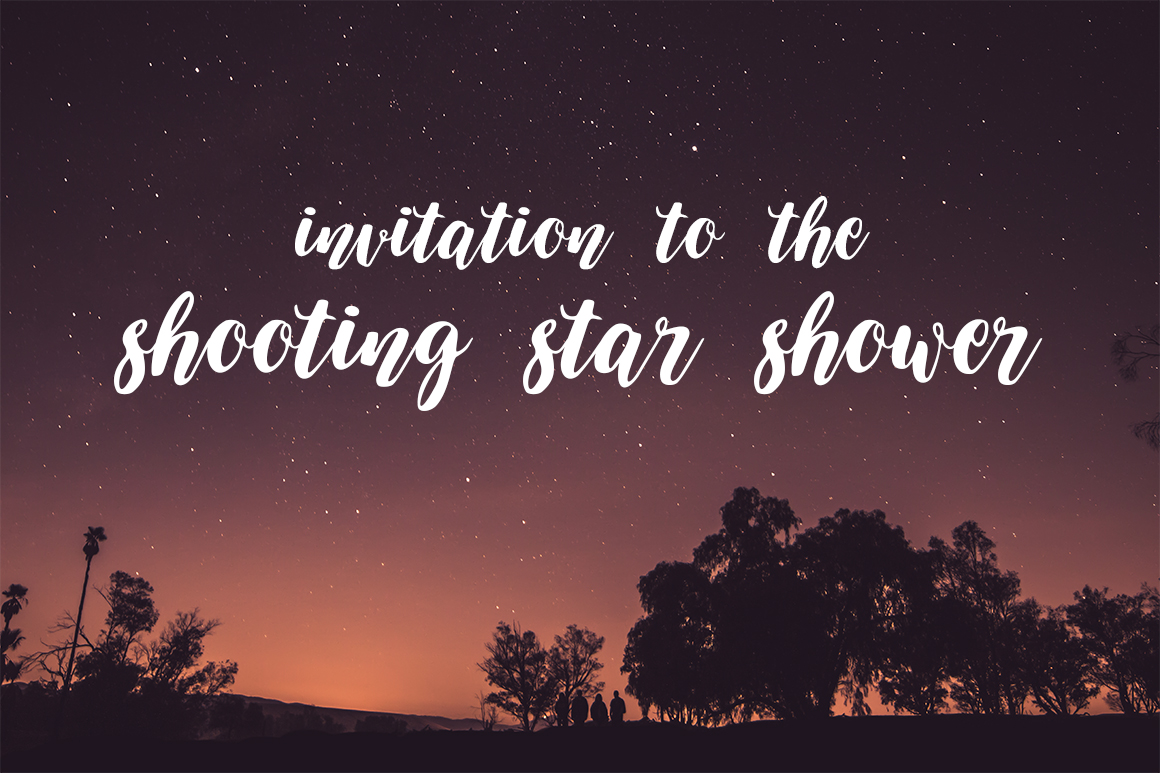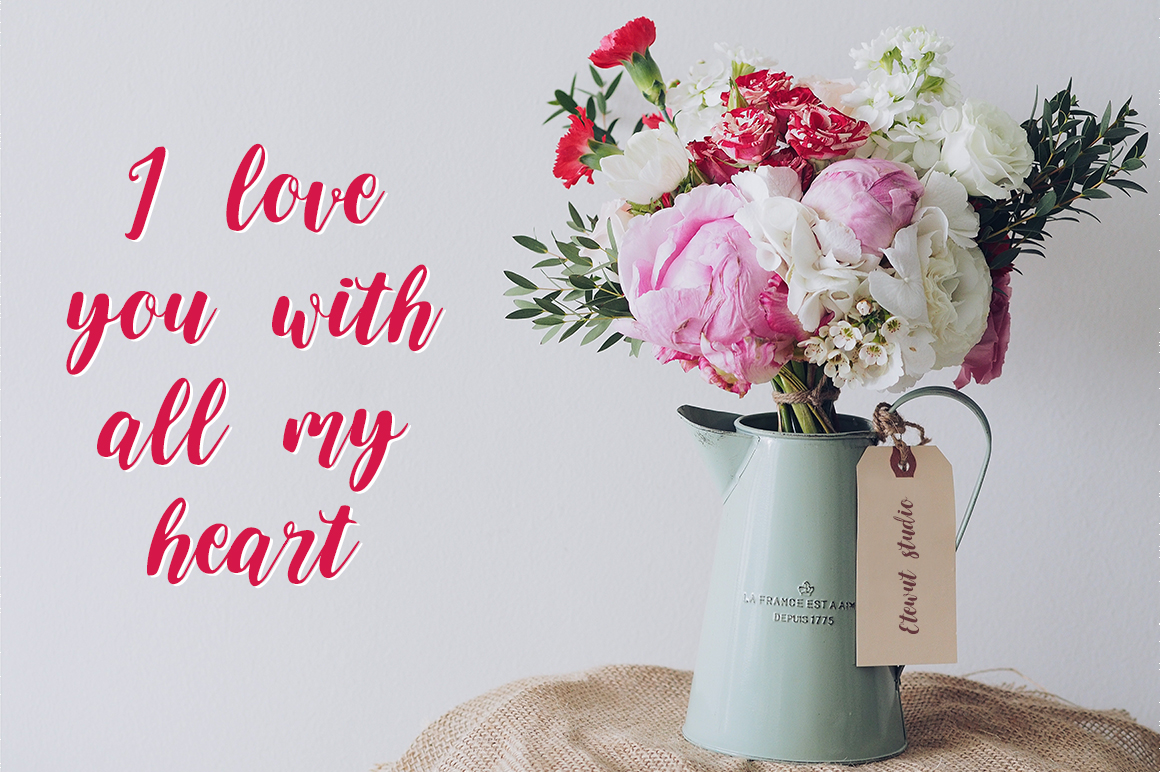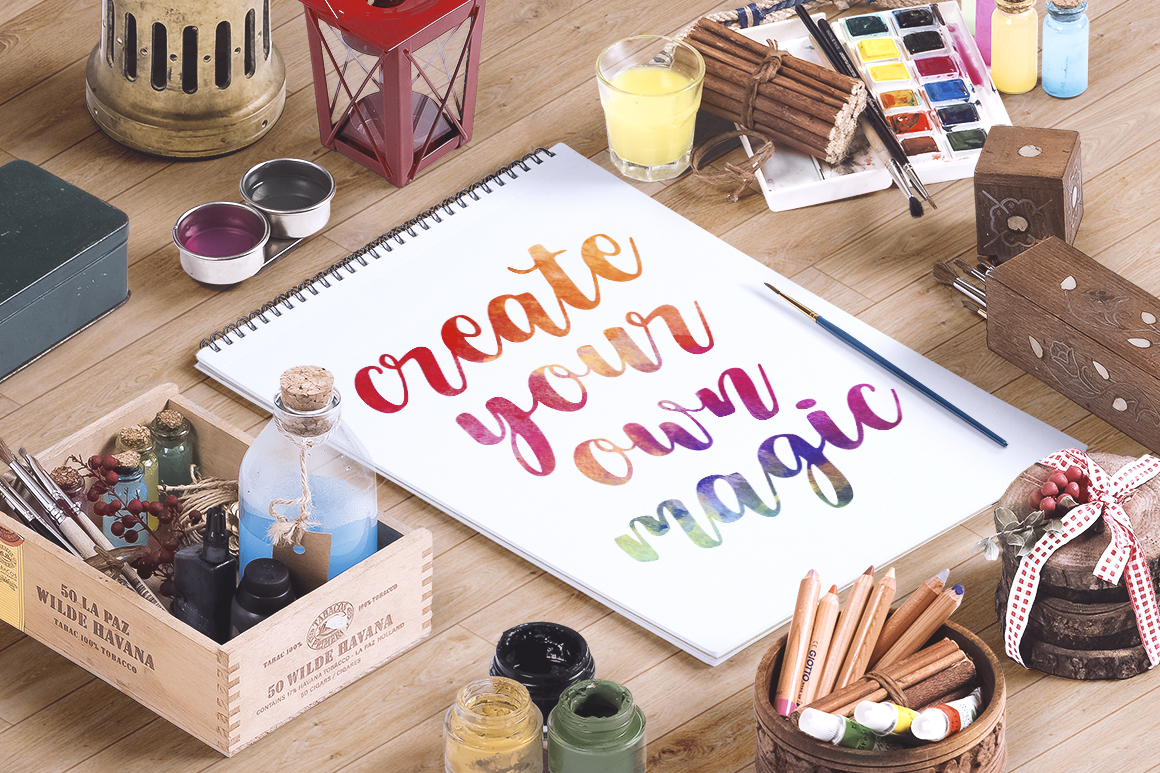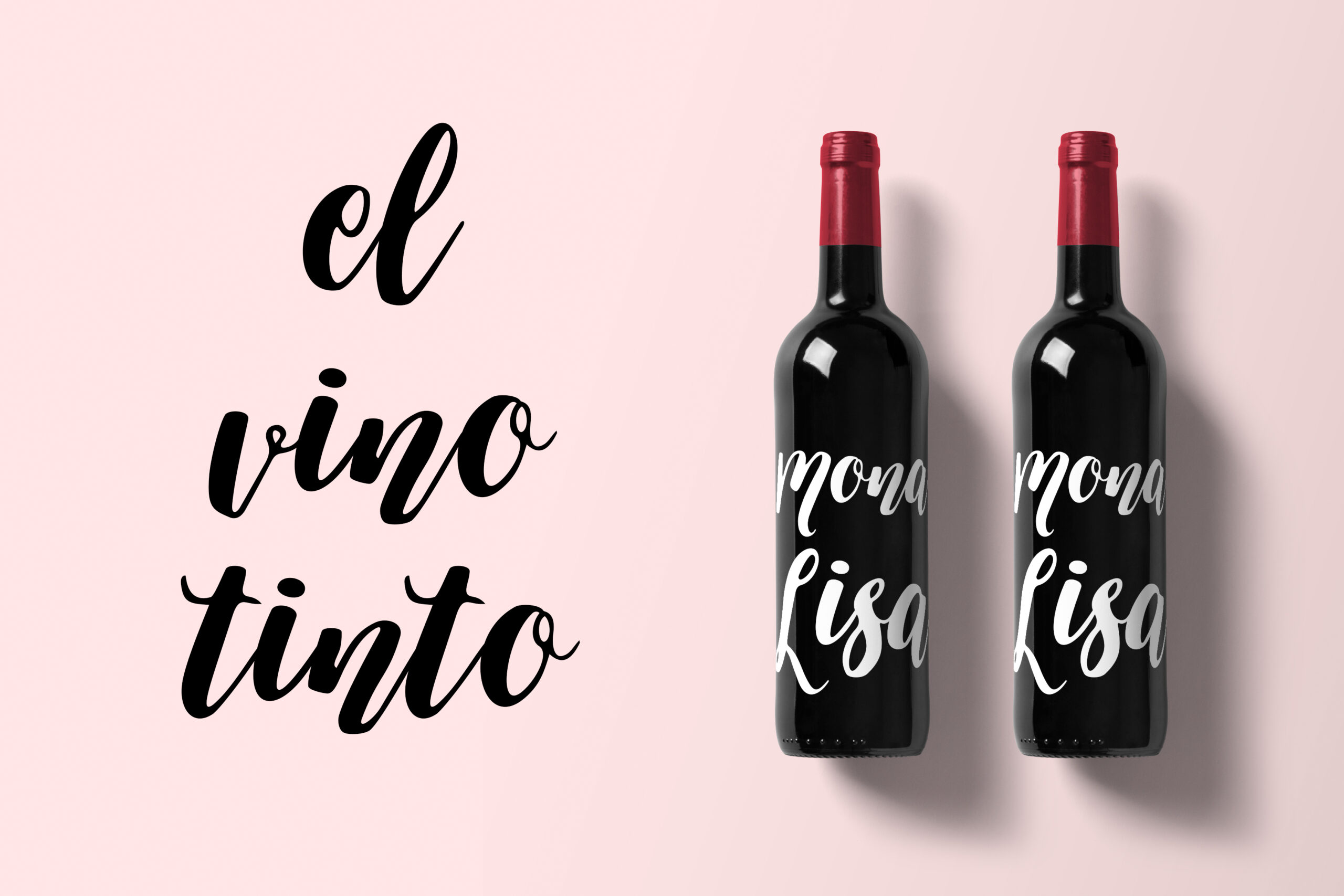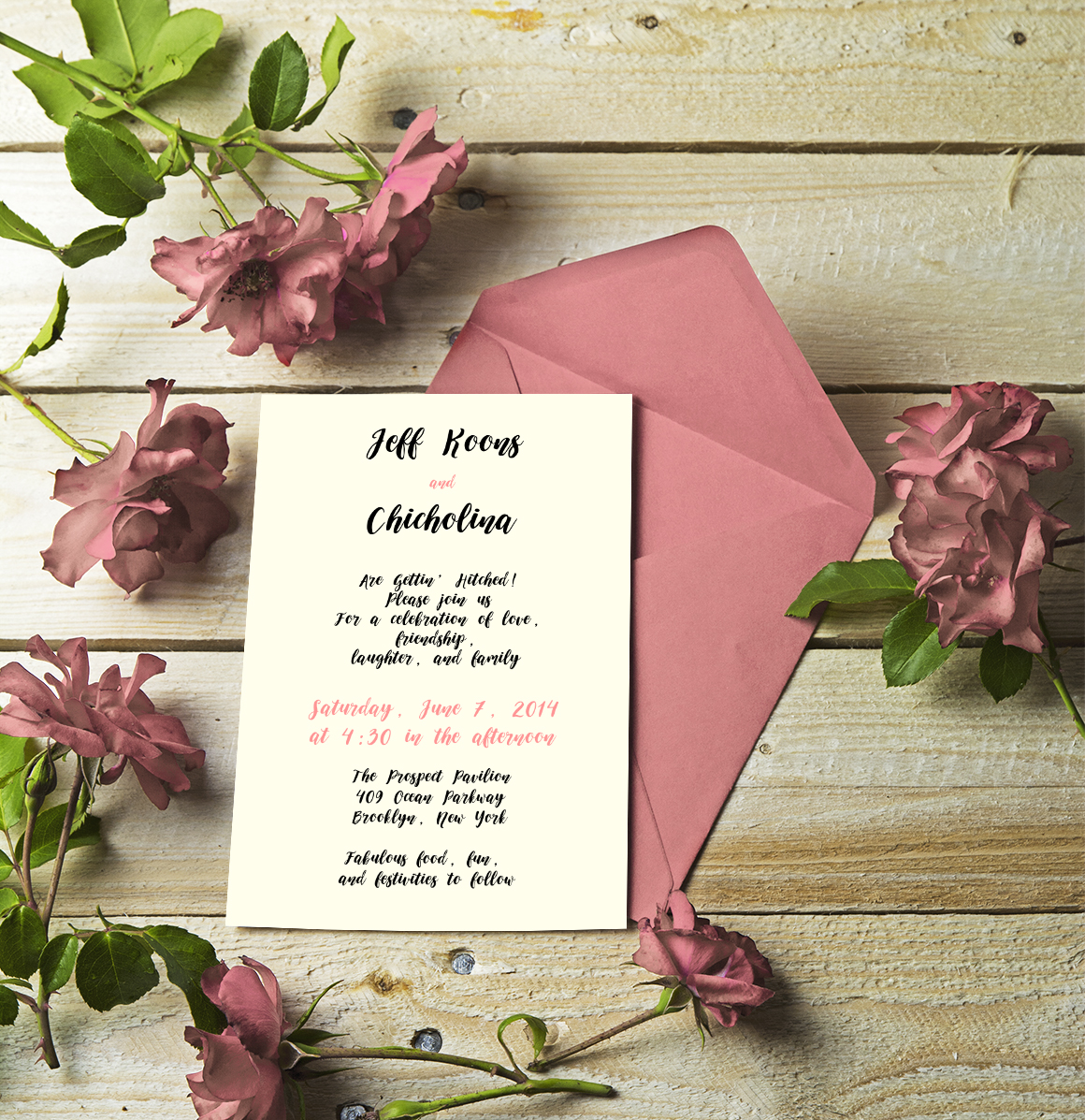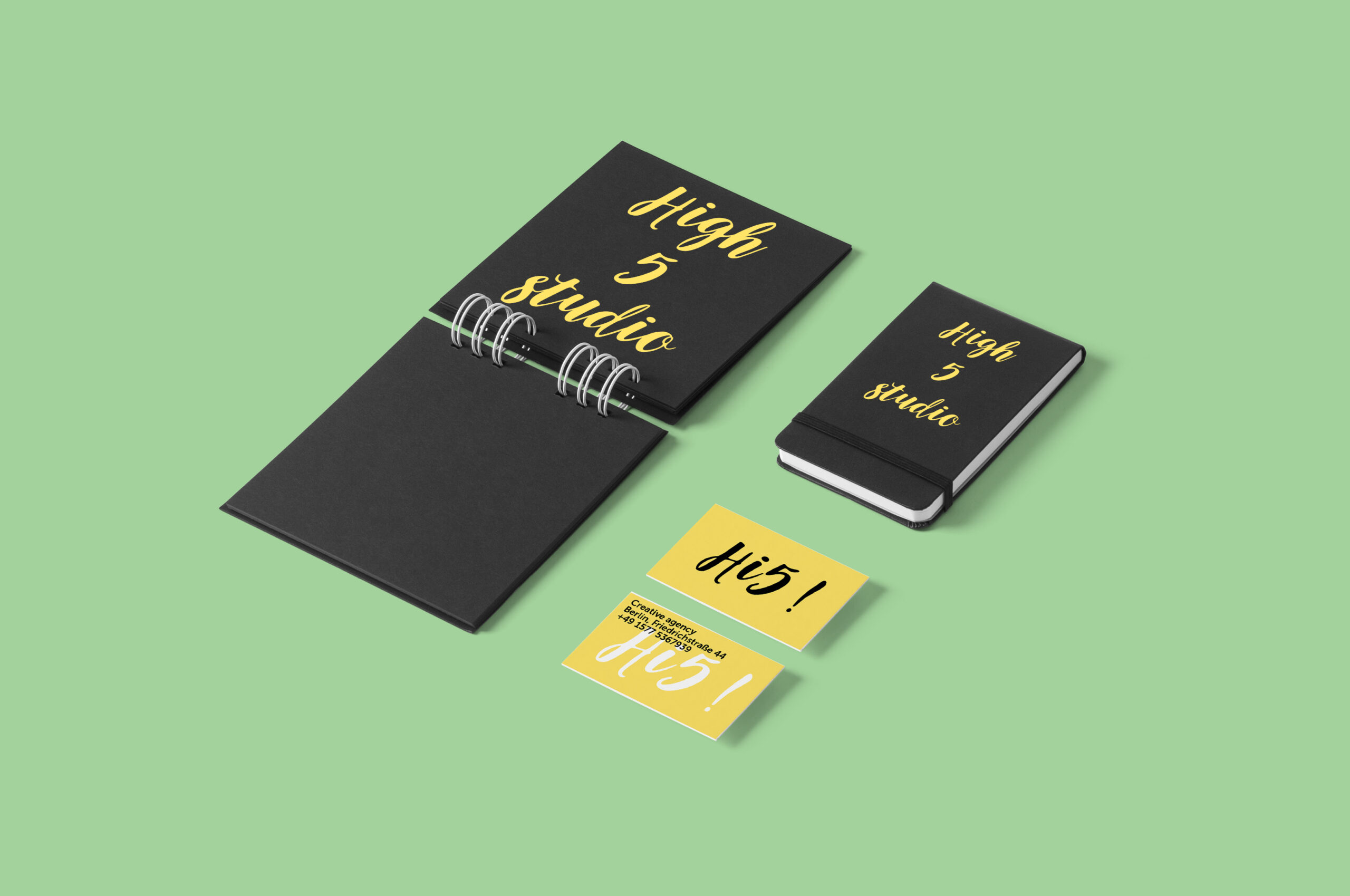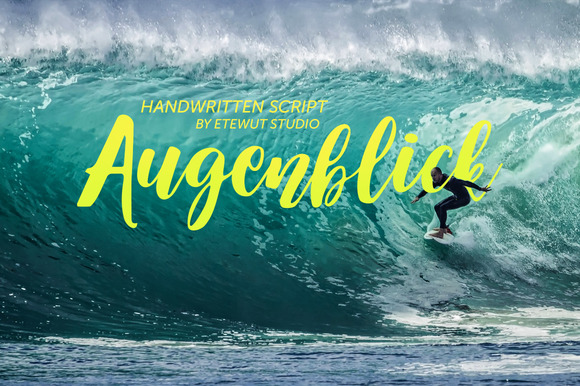
HomeScript FontsAugenblick Font Script Fonts Augenblick Font FacebookXPinterestWhatsApp Augenblick Font Poster 2 Augenblick Font Poster 3 Augenblick Font Poster 4 Augenblick Font Poster 5 Augenblick Font Poster 6 Augenblick Font Poster 7 About Augenblick Font Augenblick is a smooth handwritten font created by Etewut. DOWNLOAD ON CREATIVE FABRICAThis font is sold and delivered by Creative Fabrica. Font Canyon may earn a commission if you buy through this link. People also explored Beadwork Font Mollani Anemouth Font Betrothed Font Refanea Font Soubath Ambyar Font Assuming Font Amarthas Font Butter Jelly Font 312 0 TagsAugenblick Font Previous articleRaising FontNext articleWolf Bane Bold Font LEAVE A REPLY Cancel reply Comment: Please enter your comment! Name:* Please enter your name here Email:* You have entered an incorrect email address! Please enter your email address here Website: Save my name, email, and website in this browser for the next time I comment. Personal Use Free City Tour Personal Use Free Read more about this font Adelaide Personal Use Free Read more about this font Rembank Personal Use Free Read more about this font Adeline Personal Use Free Read more about this font BLOG Best Fonts for T-Shirt Design – Top 2025 Picks In 2025, t-shirt design has become more than just fashion—it's a form of self-expression. Whether you're... Exploring Font Trends Transform Your Website: Elevate Your Typography with 7 Best Web Font Generators The 10 Best Handwriting Fonts to Add Personality to Your Designs